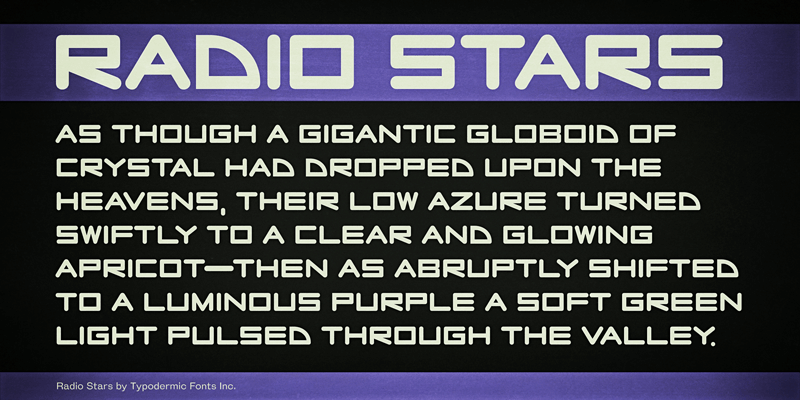
Preview and download Radio Stars Font. Created by Typodermic Fonts in Techno Sci-fi styles with 100% Free license.
Radio Stars is a blunt-ended, functional headline bellower. This font includes a license that allows free commercial use: sometimes referred to as a desktop license. This allows you to install the font on a computer and use it to create posters, web graphics, game graphics, t-shirts, videos, signs, logos and more. Read the license agreement for details. If you'd like to embed this font in an app, ebook, on the web or anything that's not covered by the desktop license agreement, visit the link below. You'll find distributors who offer different types of licenses or you can contact me for help. http://typodermicfonts.com/radio-stars/ |